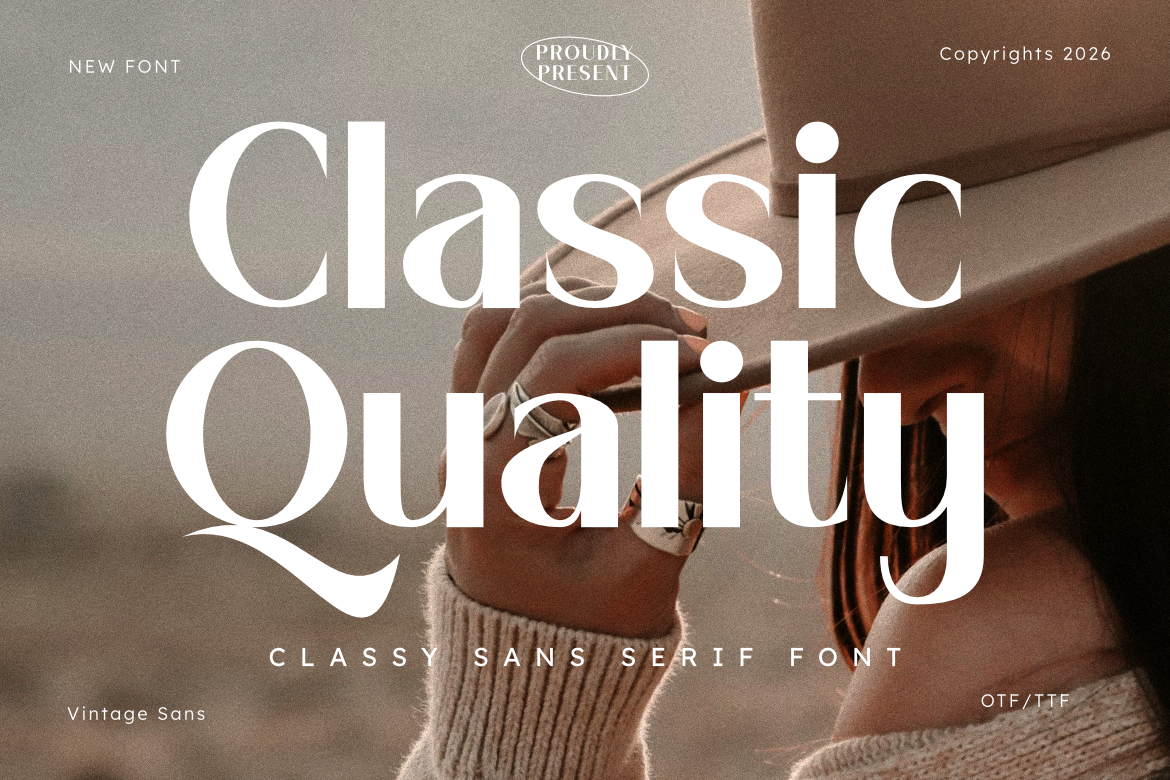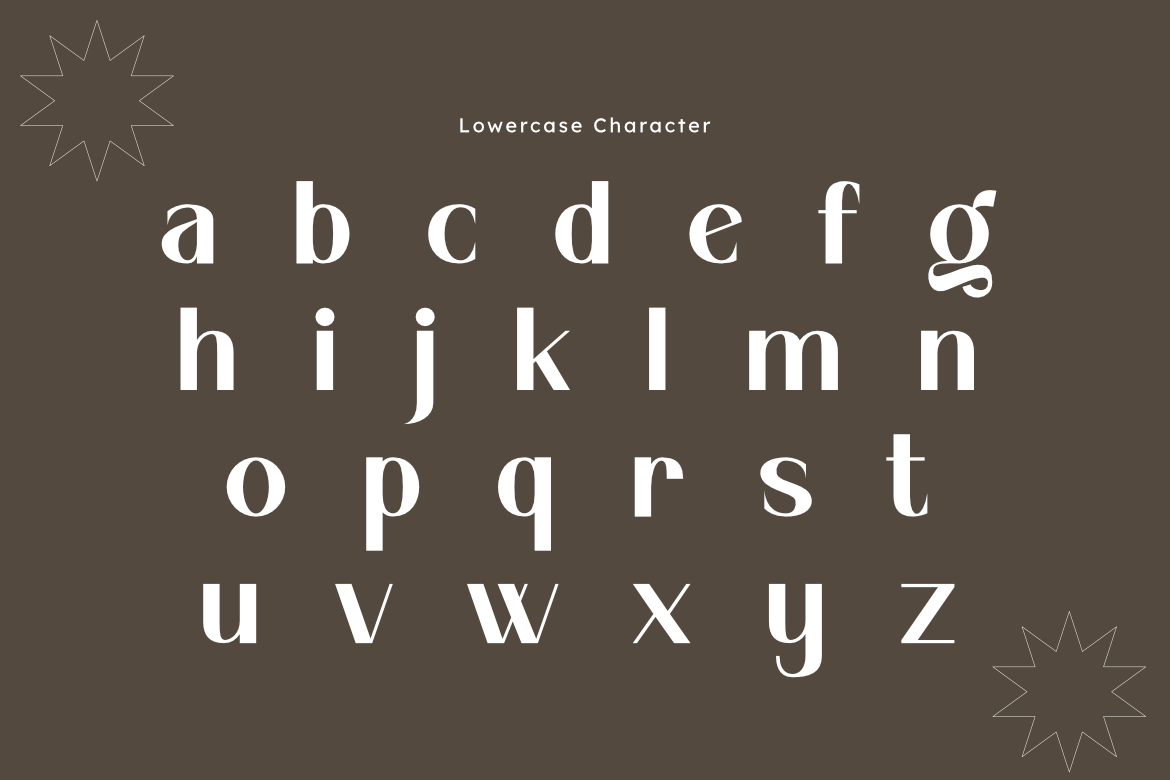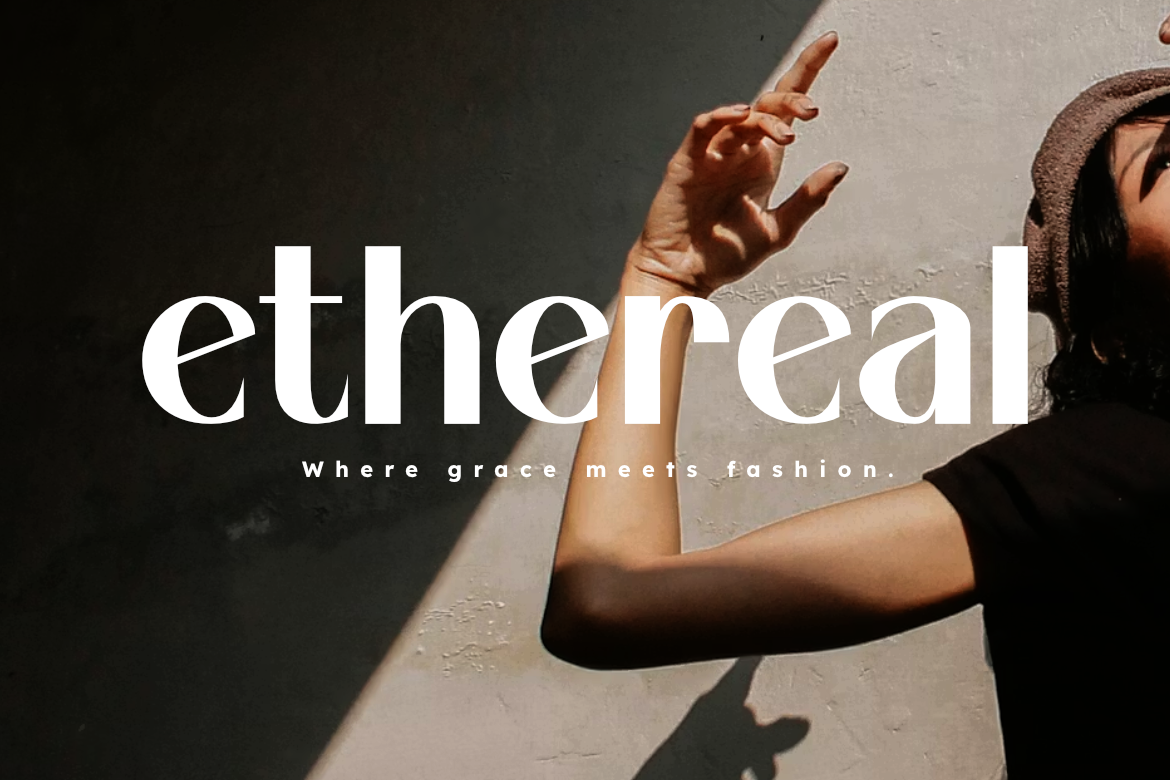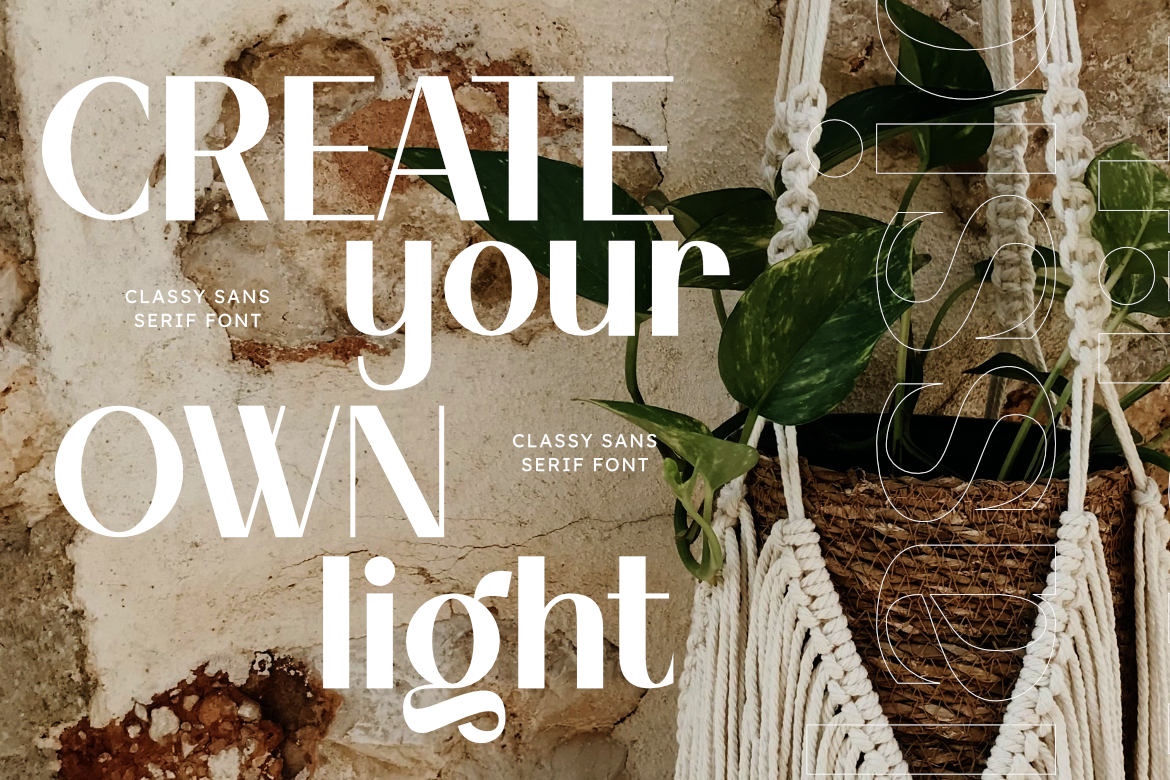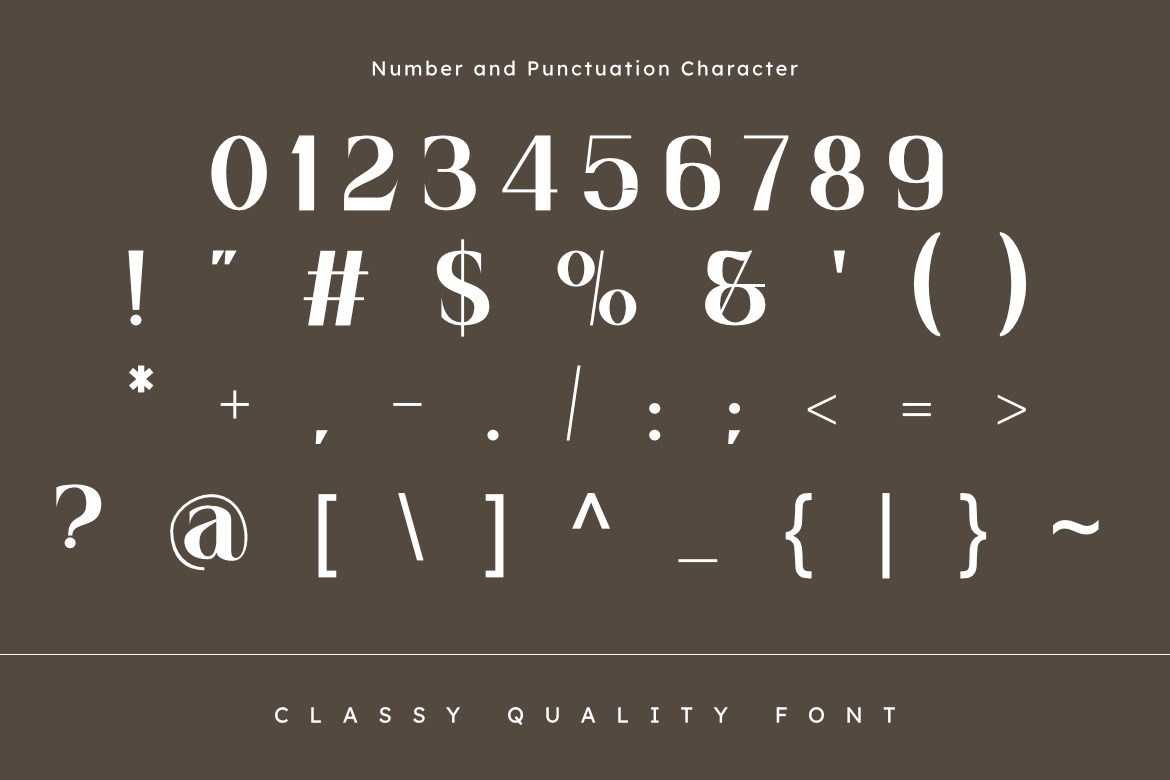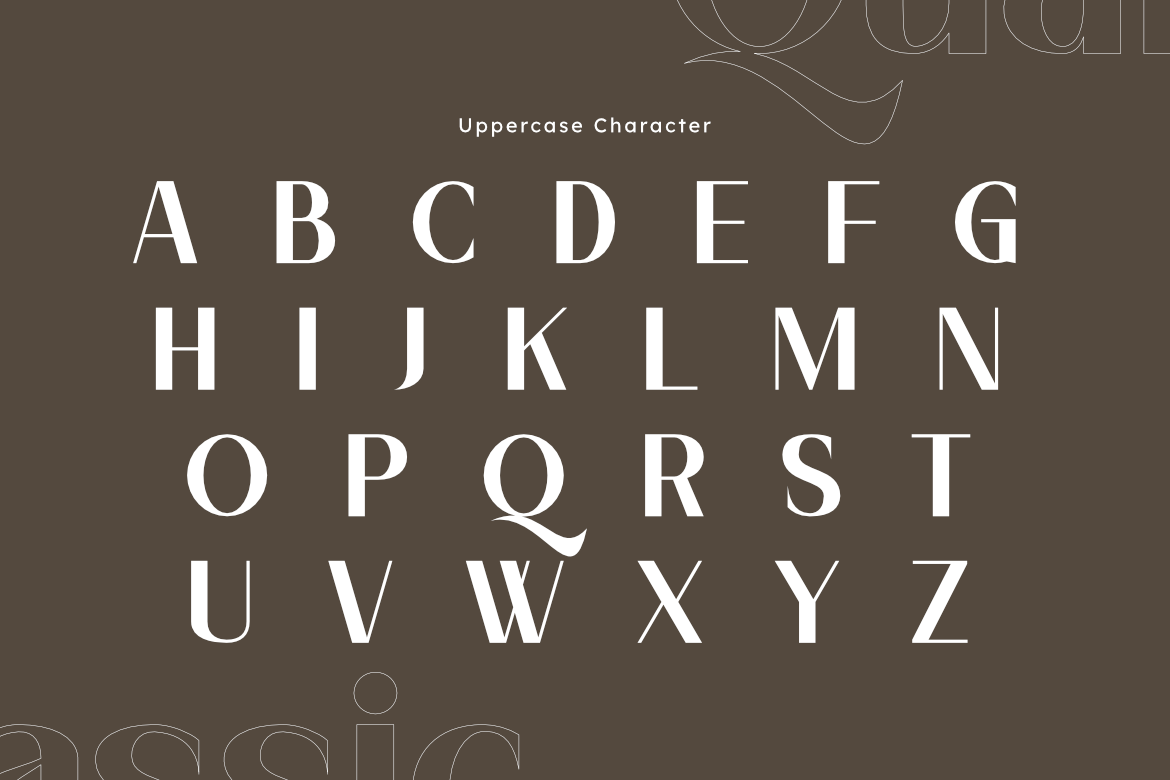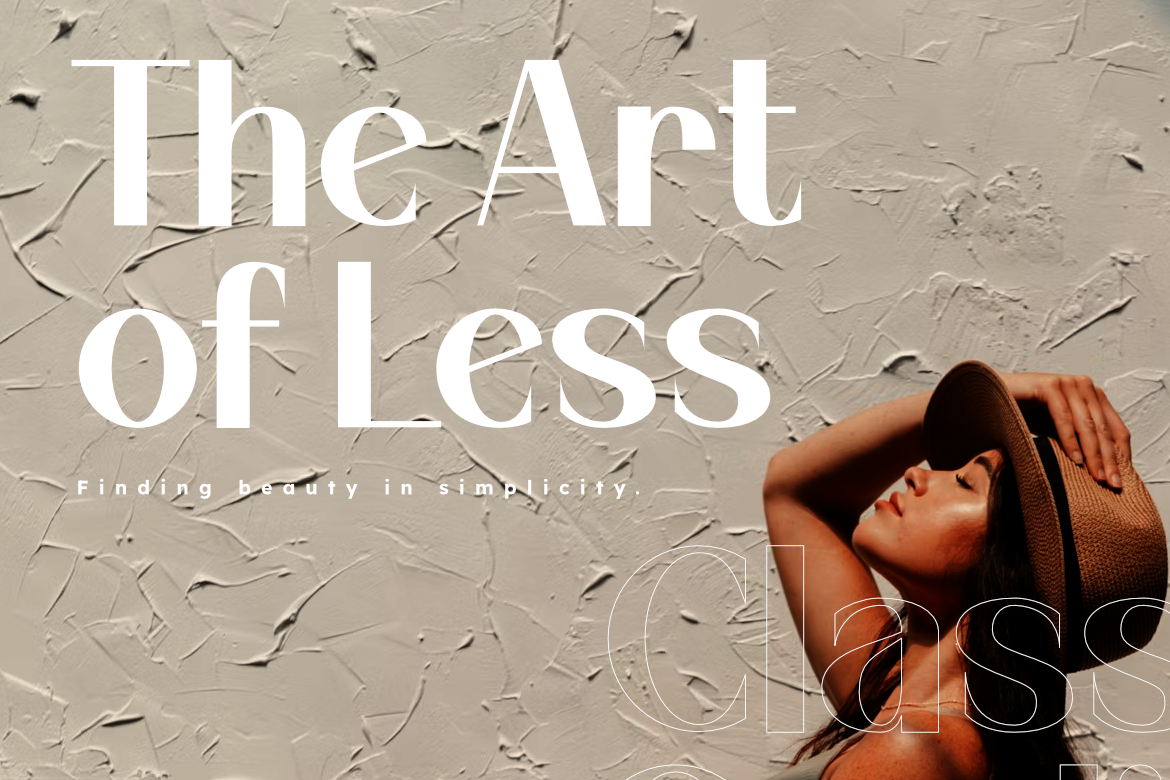
Classic Quality - Classy Sans Serif Font for Fashion Brand Identity
Classic Quality is a modern professional font designed for sophisticated branding and high-end design projects.
Its clean and elegant letterforms provide a contemporary yet timeless feel, striking a perfect balance between vintage charm and modern aesthetics. This font embodies the essence of modern minimalism while maintaining a sense of luxury and refinement, making it stand out in any high-class visual composition.
Whether you are crafting a corporate identity, designing sleek business cards, or working on editorial content, Classic Quality ensures your work exudes professionalism and style. It is ideal for branding, business logos, websites, and high-end fashion catalogs where a touch of class is required.
Inspired by the timeless elegance of vintage typography, Classic Quality offers versatility and adaptability for various design applications, helping you communicate a polished and modern aesthetic that leaves a lasting impression.
Main Features:
- Clean, elegant, and classy sans serif style.
- Sophisticated and minimalist letterforms.
- Perfect for high-end branding and editorial design.
- Professional and timeless appearance.